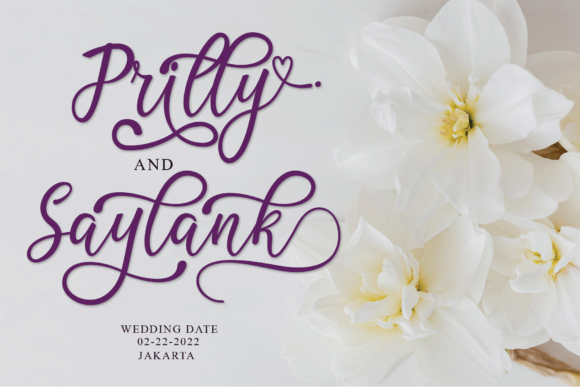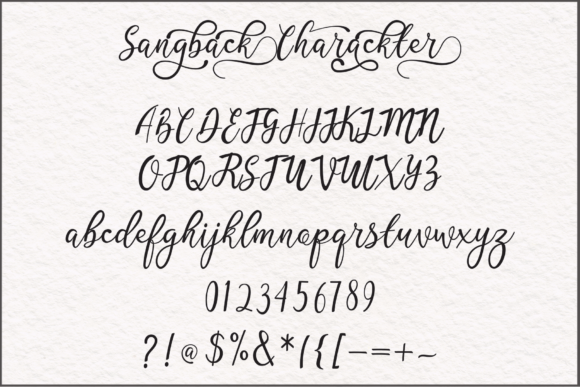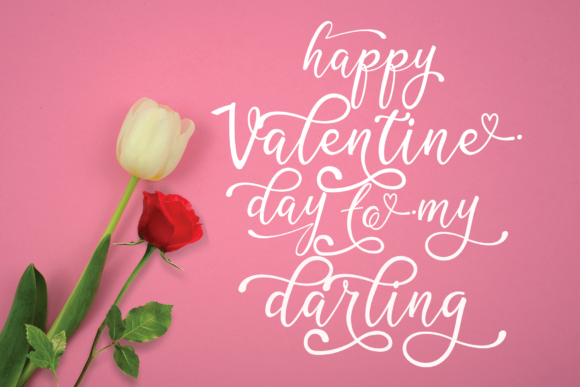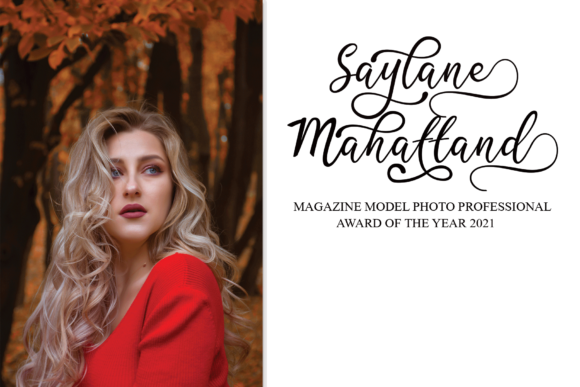
About Sangback Font
Sangback is a lovely, elegant and unique decorative font. Add this romantic looking font to each of your love letters, wedding invitations or favorite design ideas, and you will be astounded by the outcome.